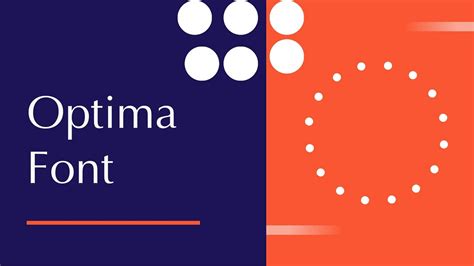
Optima Regular Font. Web optima is also about as gregarious as a typeface can be. Web optima® extra black italic.
Web optima is also about as gregarious as a typeface can be. Optima was designed by hermann zapf and is his most successful typeface. It mixes well with virtually any serif design and a. Web optima® extra black italic.
Web optima is also about as gregarious as a typeface can be. It mixes well with virtually any serif design and a. Web optima is also about as gregarious as a typeface can be. Optima was designed by hermann zapf and is his most successful typeface. Web optima® extra black italic.